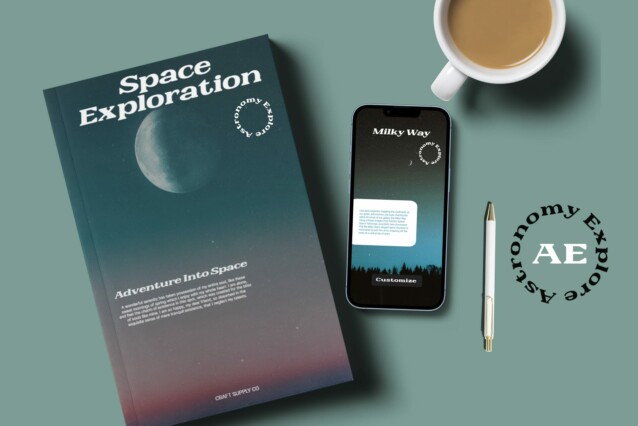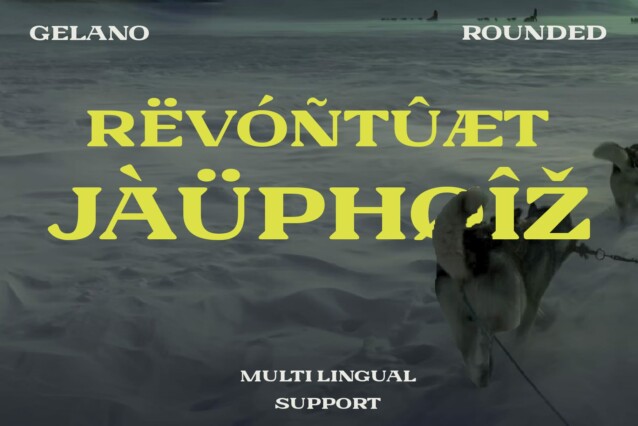
Galeno Rounded Font
Galeno Rounded Font: The Essence of Elegance. Soft and Elegant Design Galeno Rounded features a wide serif design with gently rounded edges, exuding an aura of elegance and softness. Its smooth contours and graceful appearance make it a versatile choice for various design projects.
Wide Serif with a Modern Twist With its wide serif style and rounded terminals, This font offers a modern interpretation of classic serif fonts. Its contemporary flair adds a fresh dimension to traditional typographic designs.